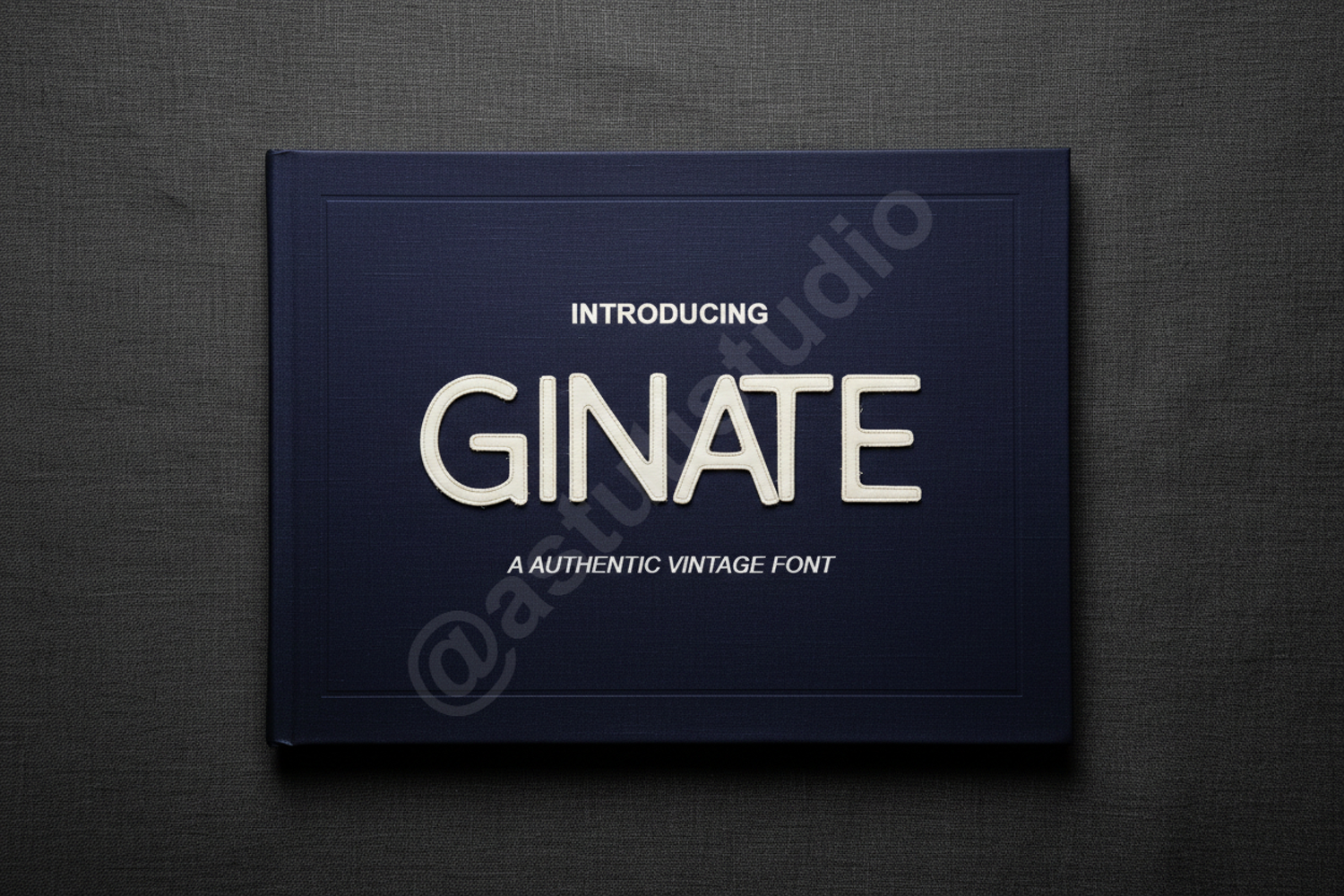
Ginate - Modern Sophisticated Serif Font
Ginate
Elevate your creative projects with Ginate, a premium serif font that embodies modern elegance and timeless sophistication. Designed with precision and a keen eye for detail, Ginate offers a perfect balance of classic structure and contemporary flair. Whether you are aiming for a high-end luxury feel or a clean professional look, this font provides the versatility needed to make your typography stand out with effortless grace.
- Full set of uppercase and lowercase letters
- Comprehensive numbers and punctuation
- Multilingual support for global reach
- Standard ligatures for seamless character transitions